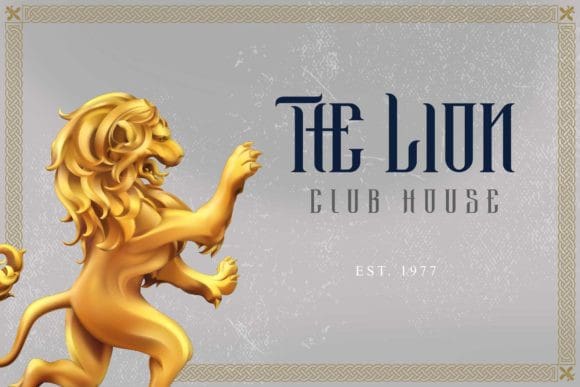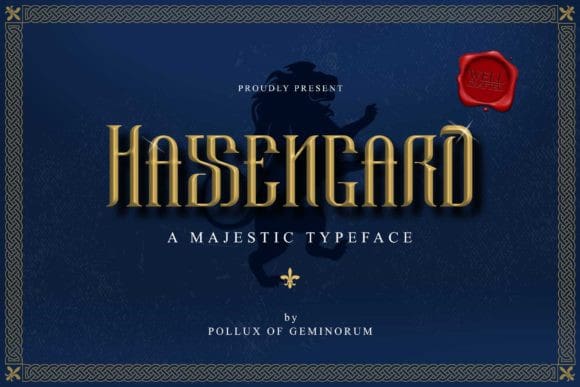
Hassengard Font
Hassengard Font is a stylish and incredibly elegant display font. It will look stunning on thank you cards, quotes, greeting cards, logos, business cards and every other design which needs a creative touch.